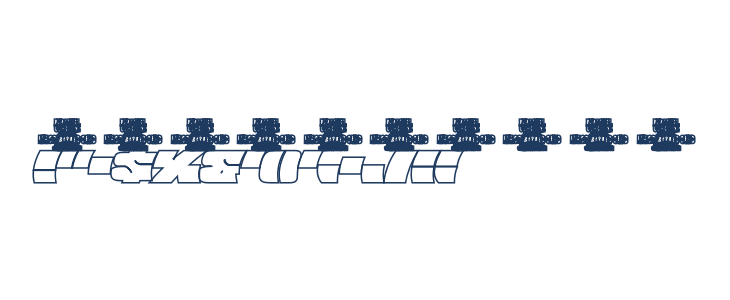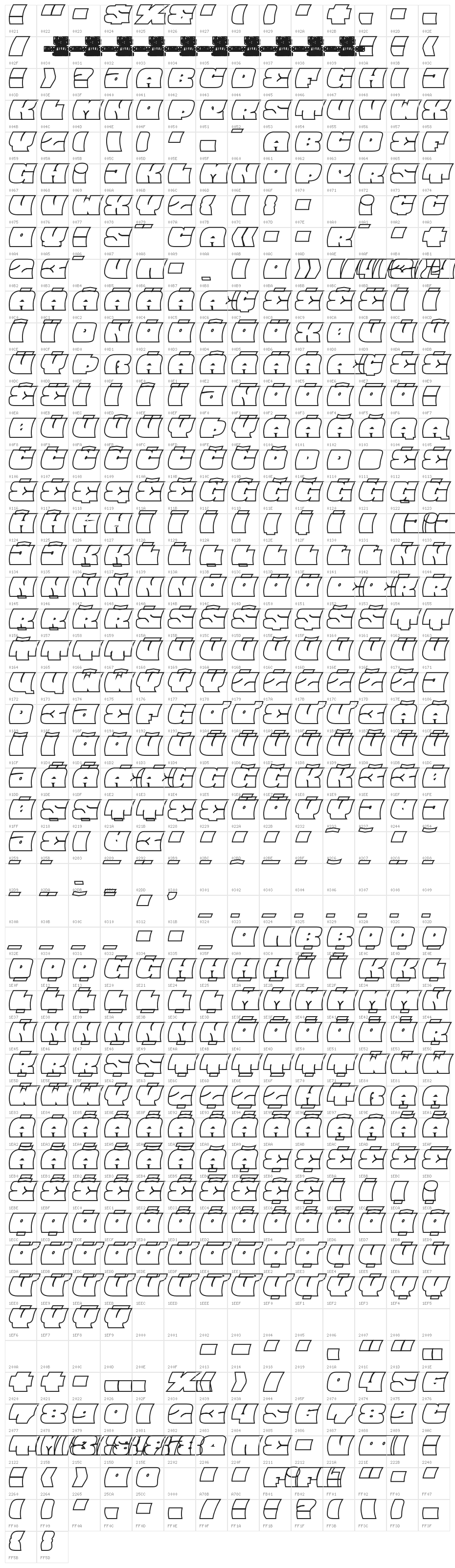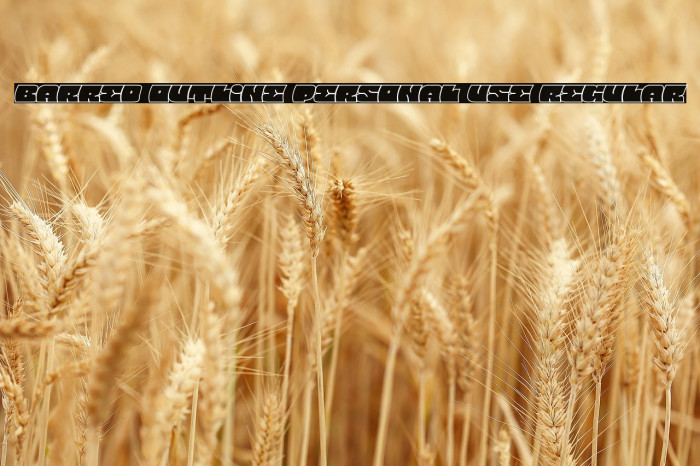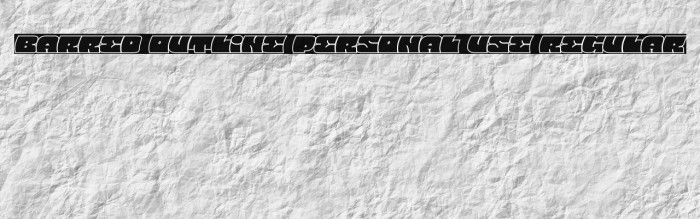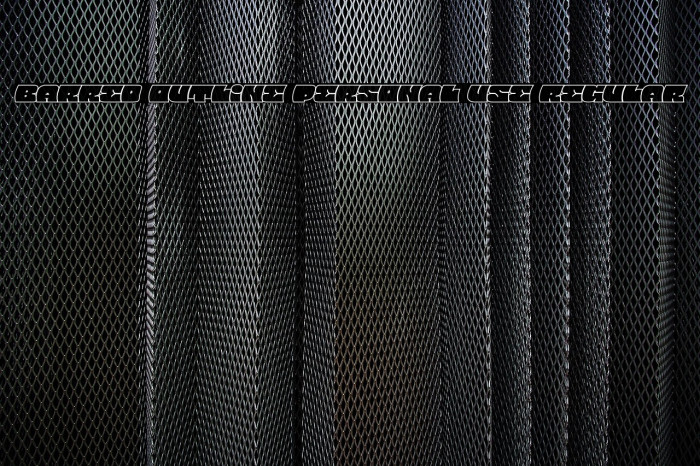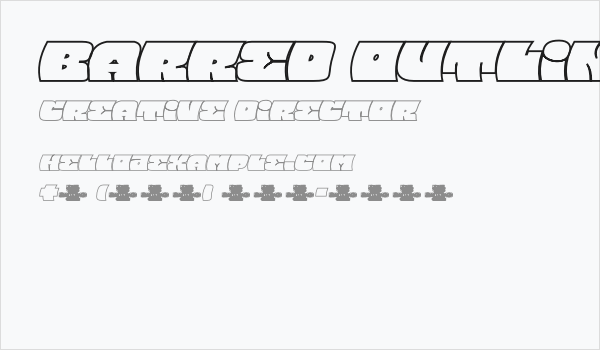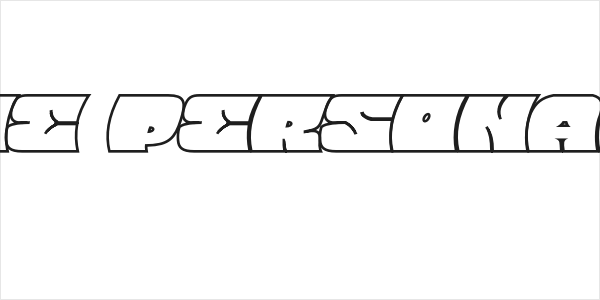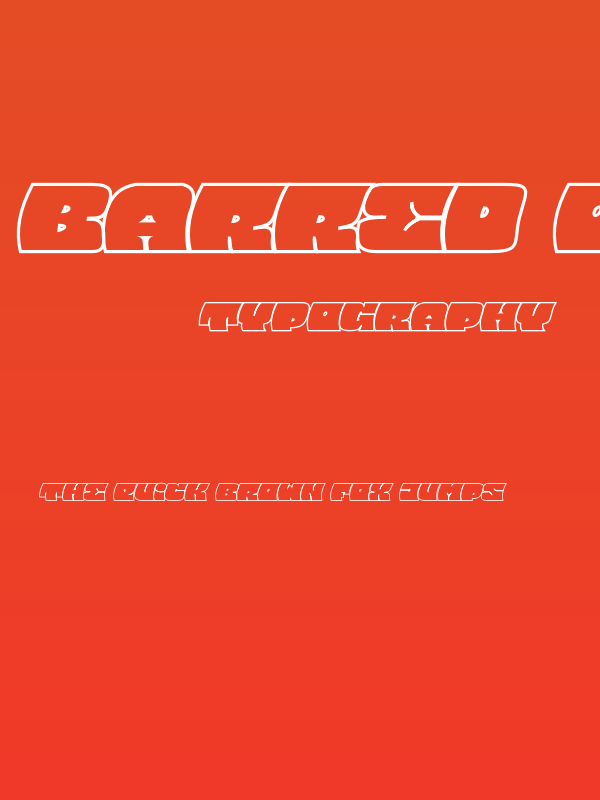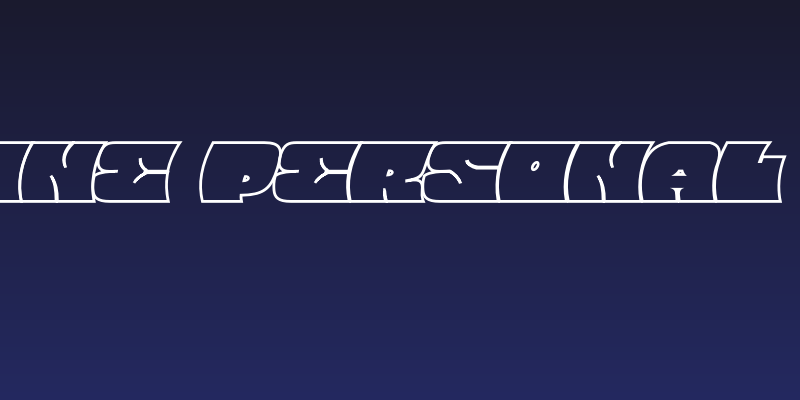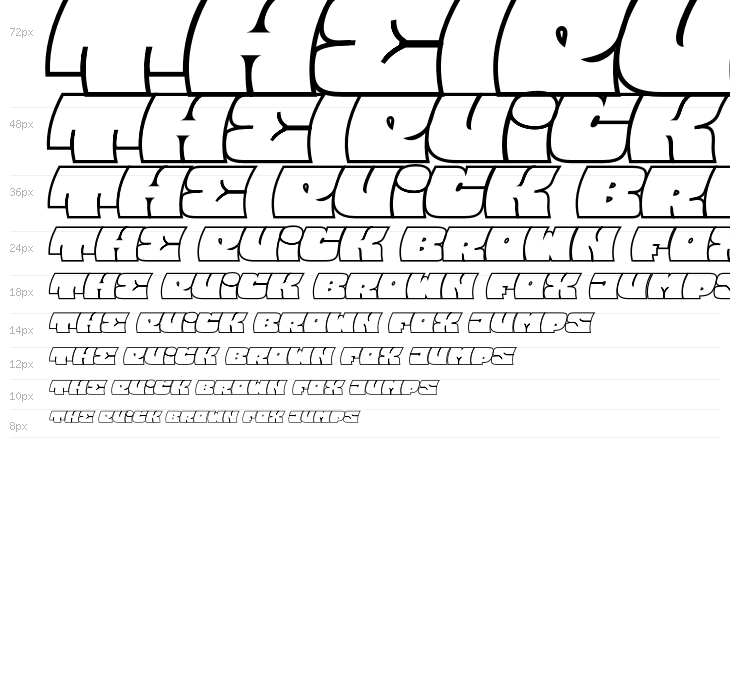
Barred Outline PERSONAL USE Regular Font
Barred Outline PERSONAL USE Regular Description
This font features a bold, outlined style with a unique barred design that gives it a distinctive and modern appearance. The characters are uppercase and lowercase letters, as well as numbers and special symbols, all sharing a consistent outline that creates a cohesive look. The boldness of the font is complemented by the hollow interior, making it suitable for eye-catching designs. The geometric shapes and clean lines contribute to its modern aesthetic, while the outline adds a playful and creative touch. This font is ideal for projects that require a strong visual impact, such as posters, headlines, and logos.